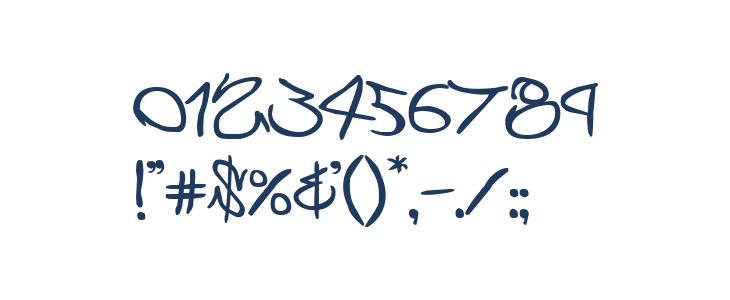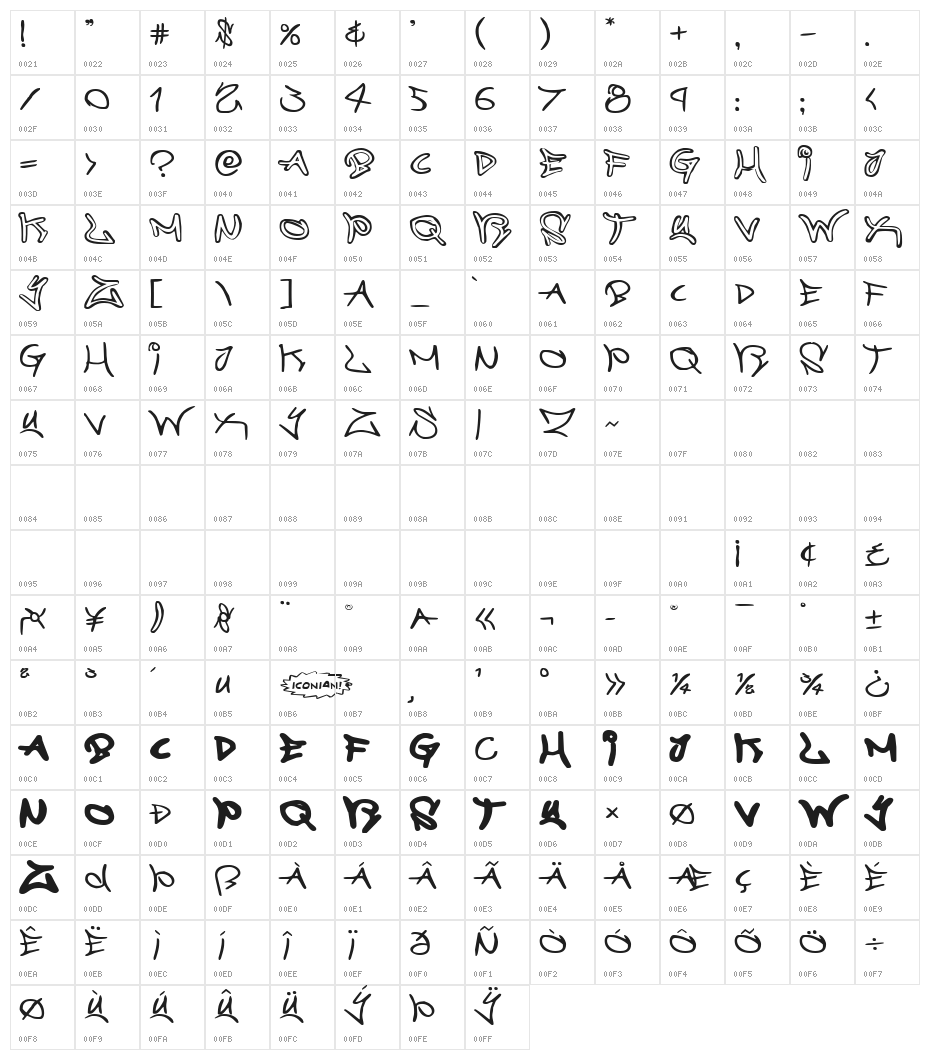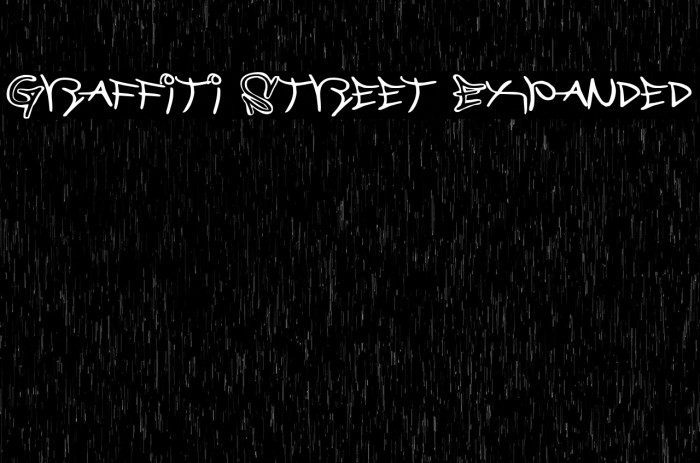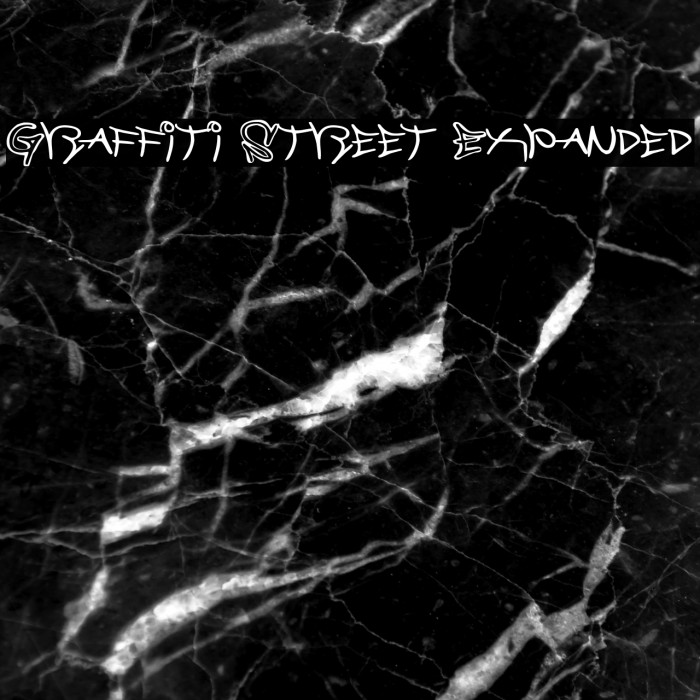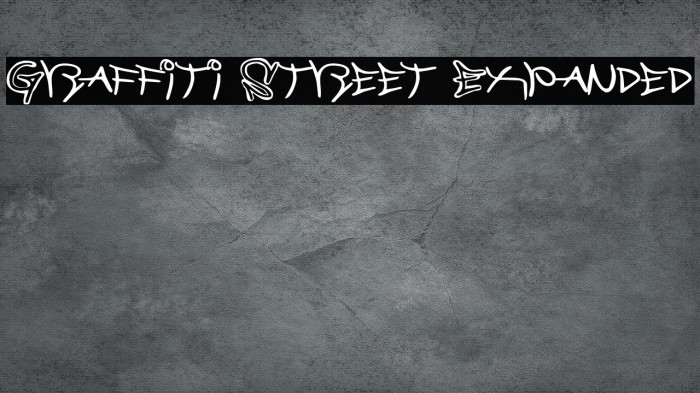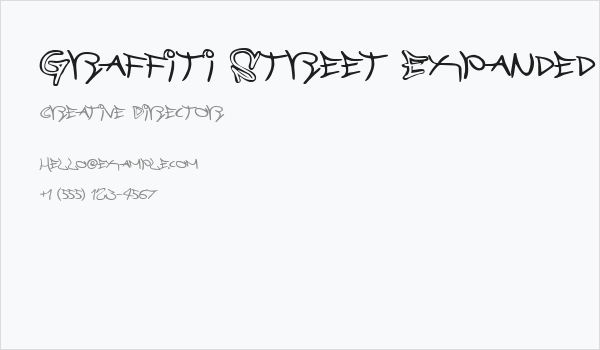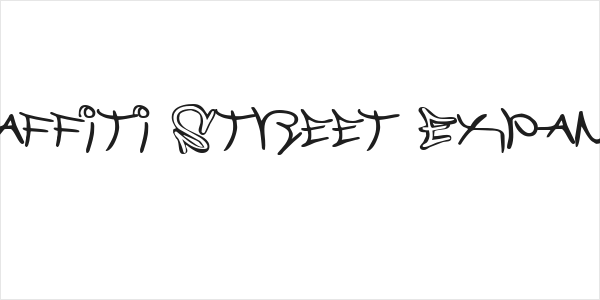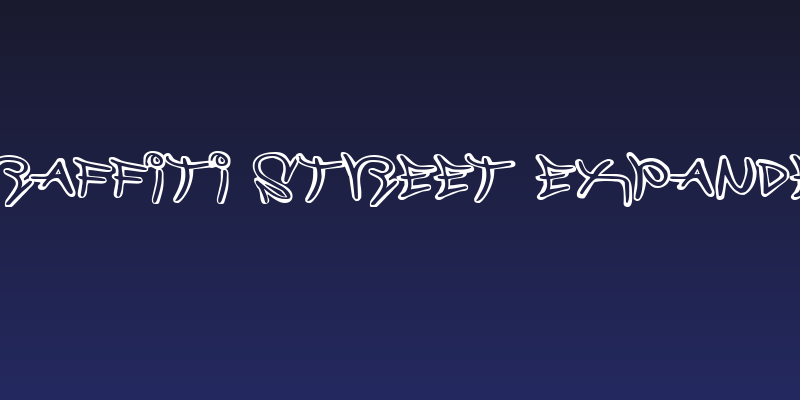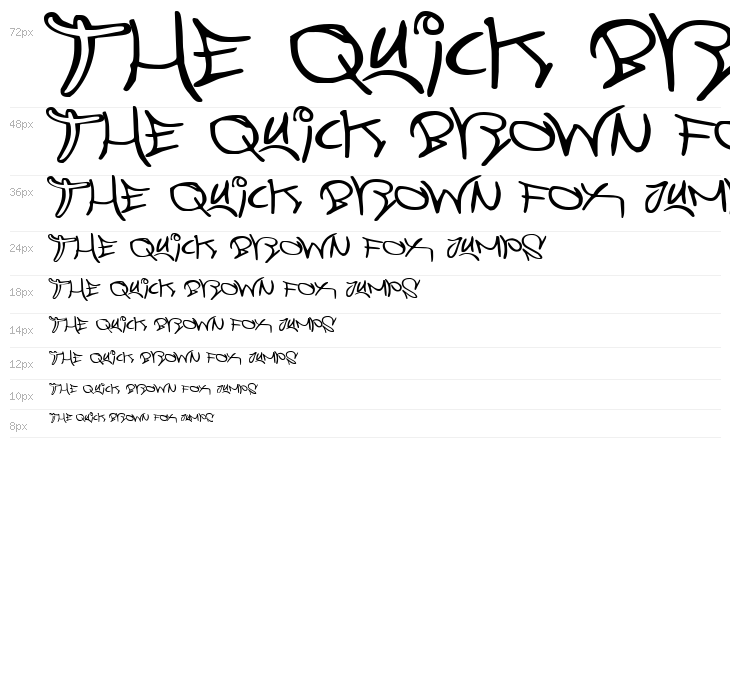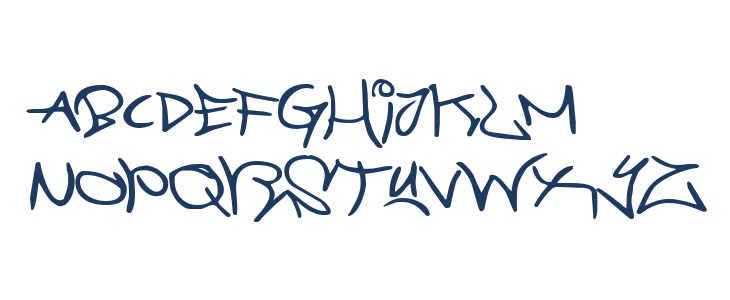
Graffiti Street Expanded Font
Graffiti Street Expanded Description
This font embodies the raw, energetic essence of street art with its graffiti-inspired design. The characters are bold and dynamic, featuring sharp angles and fluid curves that mimic the spontaneous strokes of a spray can. Each letter is uniquely stylized, giving the font a sense of movement and individuality. The uppercase and lowercase letters maintain a consistent style, while the numbers and special characters are equally expressive, enhancing the overall urban aesthetic. This font is perfect for projects that require a rebellious, edgy look, capturing the spirit of urban culture and creativity.
Overall StyleUrban, Edgy, Artistic
Use CaseLogos, Posters, Album Covers
Proposed ProjectsIdeal for street art designs, urban-themed posters, music album covers, and edgy branding projects.